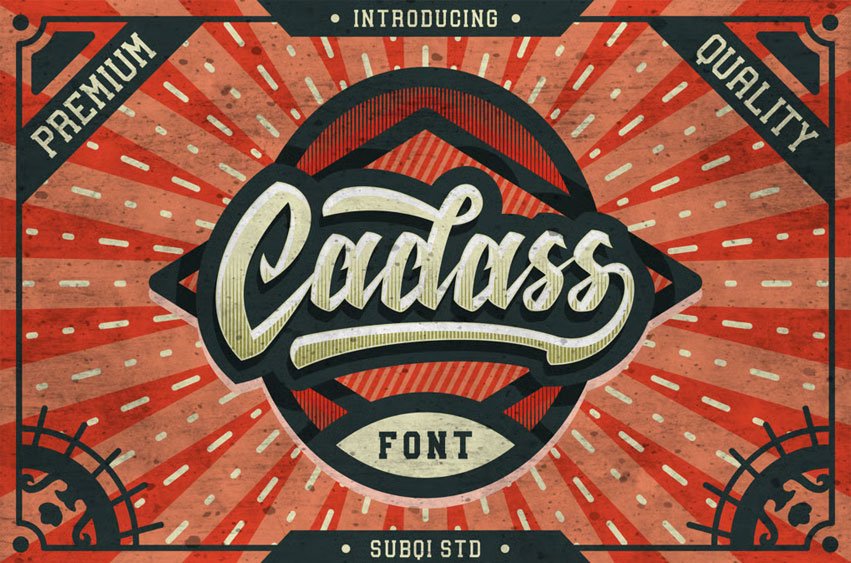
AMR Cadass Font Script Font, It’s included Script as the main font and Serif version for display companion. This font is inspired by Vintage Label design. But it can still be used for modern style purposes. Perfect for logotype, label design. poster, flyer, display, and many more.
- 370+ Total Glyphs
- Standard Character ( Uppercase, Lowercase, Numeric, Punctuation )
- Alternates Character
- Extra Swashes ( as Alternate )
AMR Cadass Font Preview